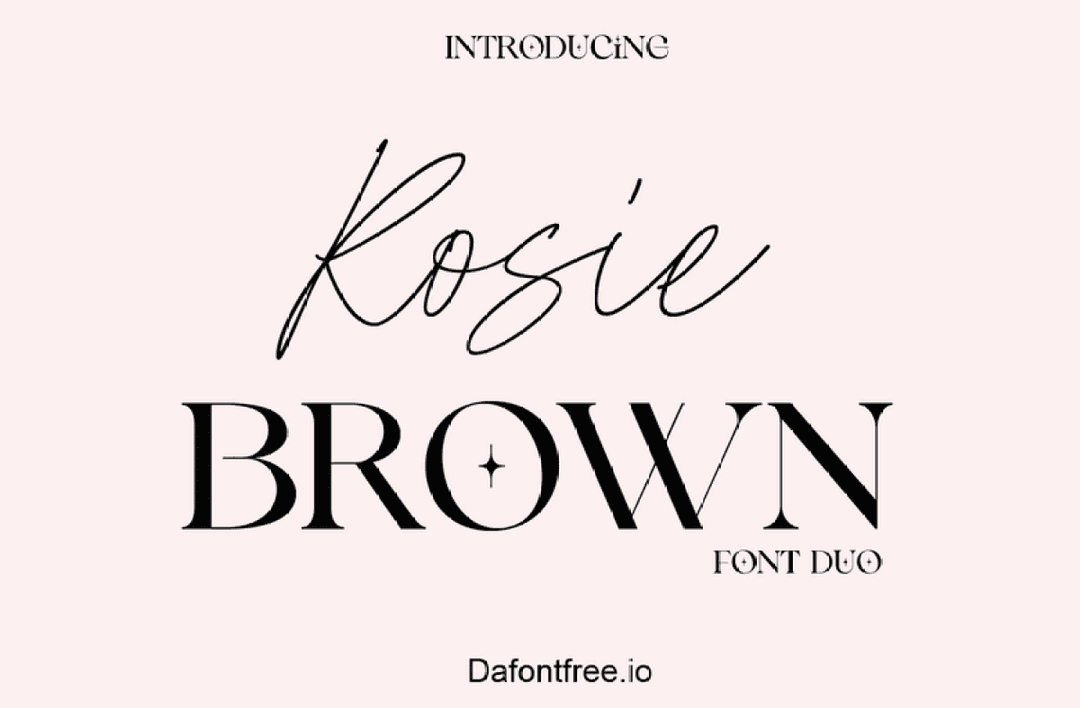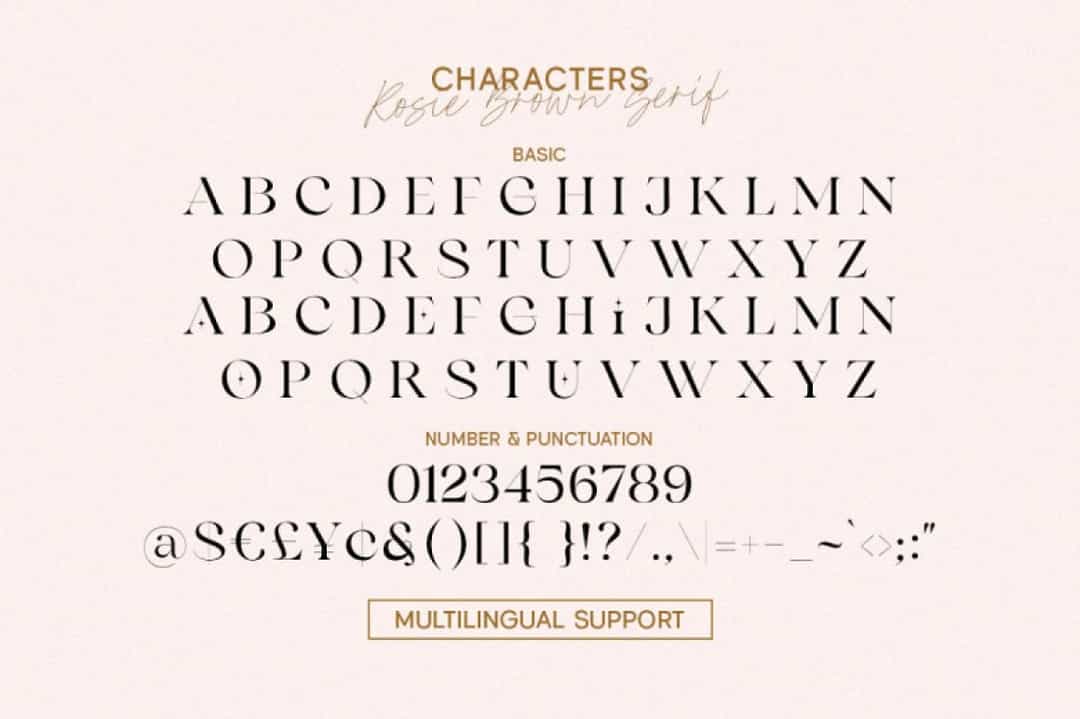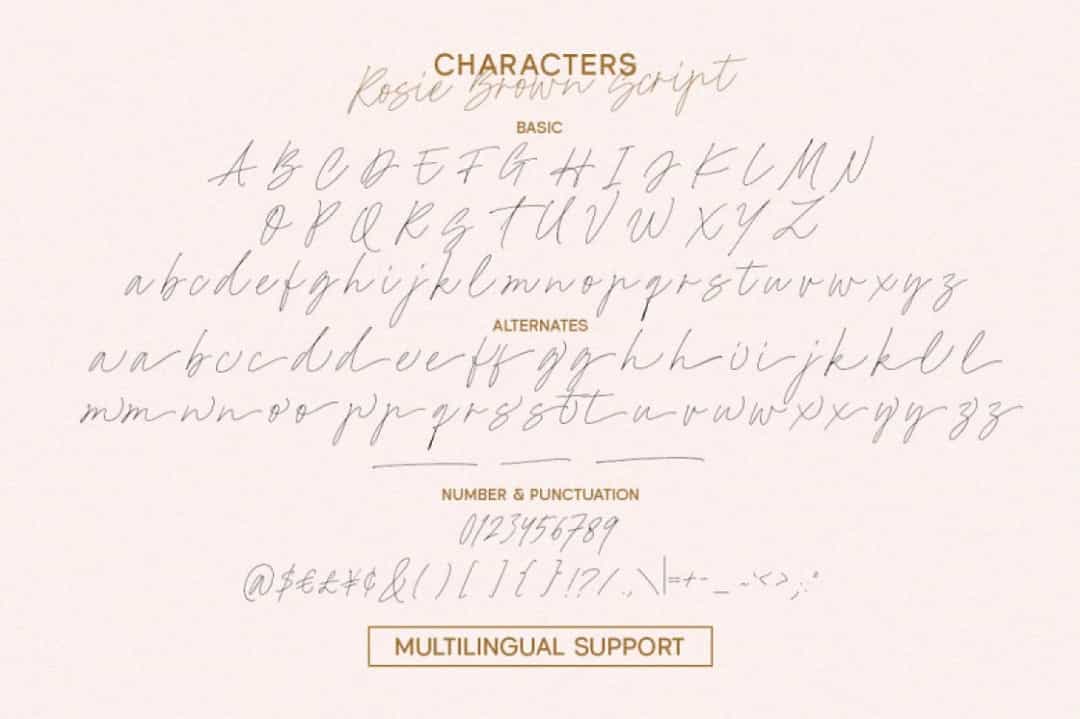
Discover Rosie Brown Font, part of the Handwritten Serif collection—a versatile and unique font perfect for adding a personal touch to your projects. Download it for free and enjoy crafting designs with style, from invitations to social media posts. This font is available exclusively for personal use, giving you the freedom to create without limits. Unlock your creativity with Rosie Brown Font today!
Rosie Brown Font Duo offers both modern and casual styles. It combines beautiful serifs with high contrast alongside natural handwriting script, making this font duo ideal for headlines, logotypes, invitations, apparel packaging designs, branding advertising etc.